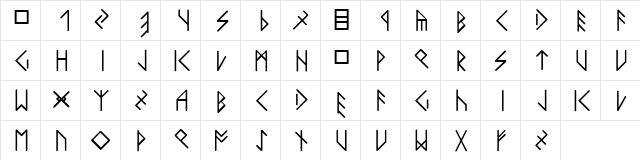
LatinLoversRunes Regular
Design Context for LatinLoversRunes Typeface
LatinLoversRunes is a composed and adaptable typeface that performs quietly and consistently across a wide range of design contexts.